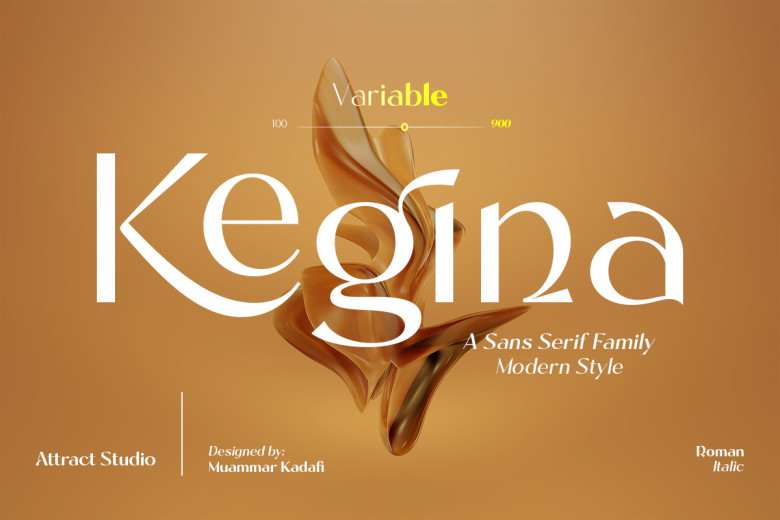
Kegina Font
Kegina features sharp curves and a minimalist aesthetic, and comes as part of a sans-serif family. Kegina offers many attractive font options and natural ligature ties; additionally, an Italic version exists for each Roman style.
Kegina Sans Serif Font